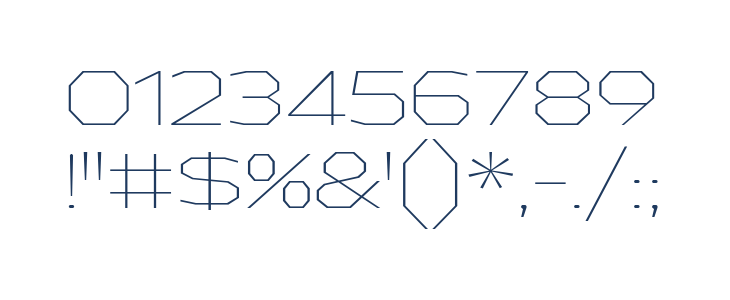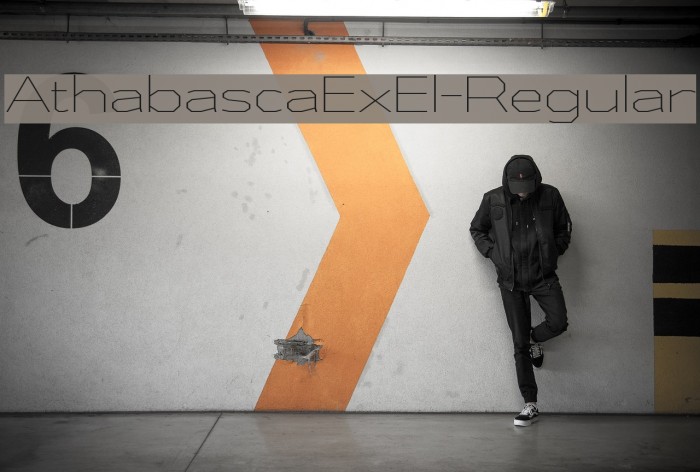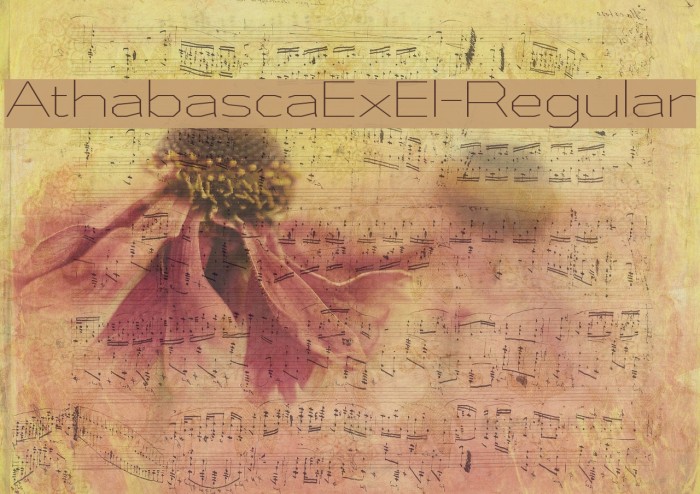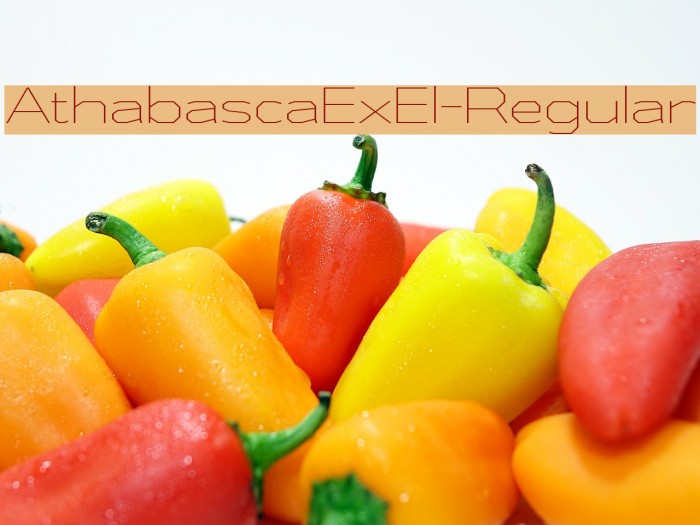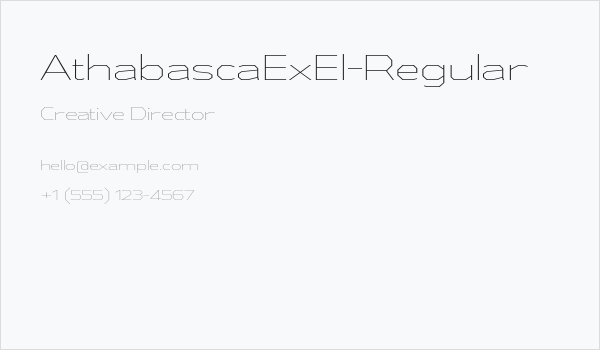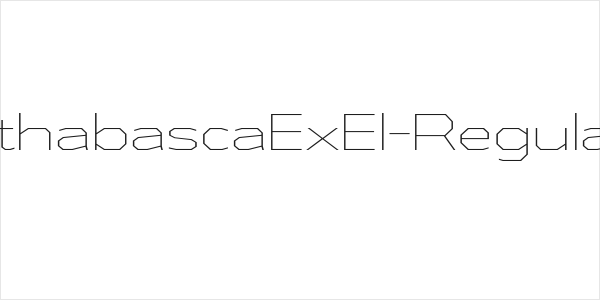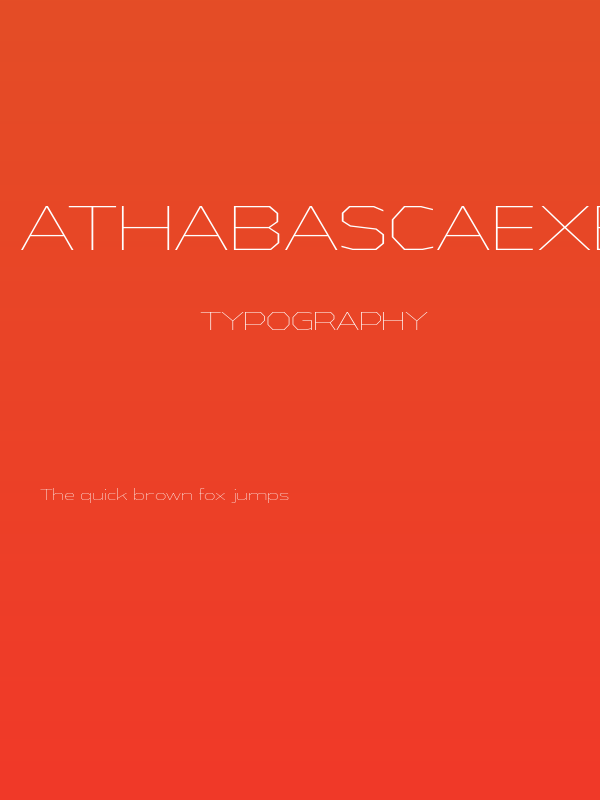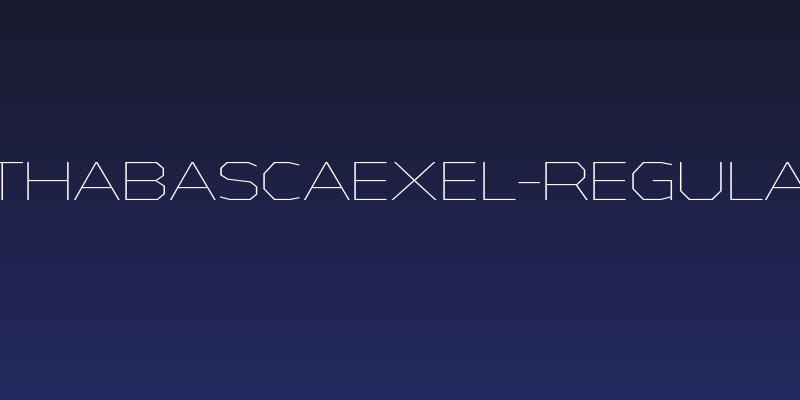
AthabascaExEl-Regular Font
AthabascaExEl-Regular Description
This font features a geometric and angular design, characterized by its sharp edges and clean lines. The uppercase and lowercase letters maintain a consistent height, creating a uniform appearance. The numerals and special characters follow the same angular style, contributing to a cohesive look. The font's structure is reminiscent of architectural blueprints or technical drawings, with a modern and minimalist aesthetic. Its unique style makes it stand out, while still being legible and functional. The overall design is sleek and futuristic, suitable for projects that require a contemporary and innovative touch.
| Proposed Projects | Ideal for technology branding, architectural designs, modern art projects, and futuristic themes. |